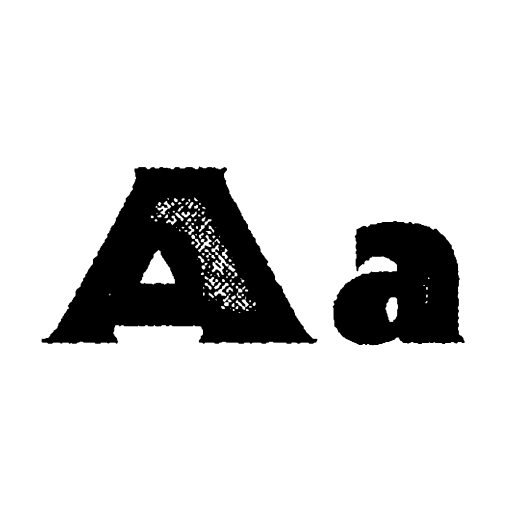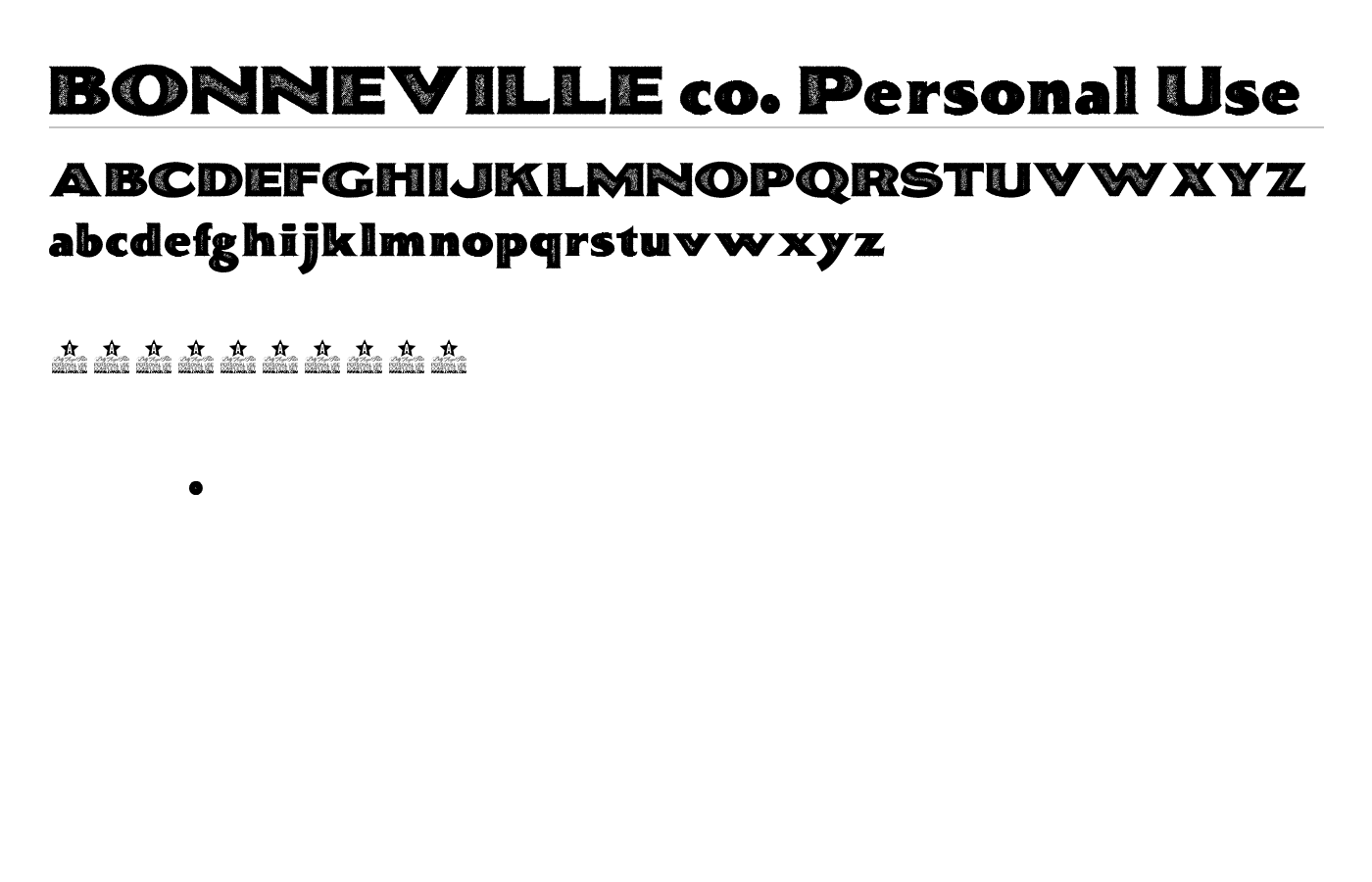
Bonneville Co. is a bold slab serif font with a strong, vintage-inspired character, featuring thick, blocky serifs and textured stroke details that give it a rugged, handcrafted feel. Its sturdy letterforms and moderate x-height make it ideal for attention-grabbing headlines, logos, and packaging, conveying a sense of durability and classic Americana style. This font works well in designs seeking a nostalgic yet impactful look.